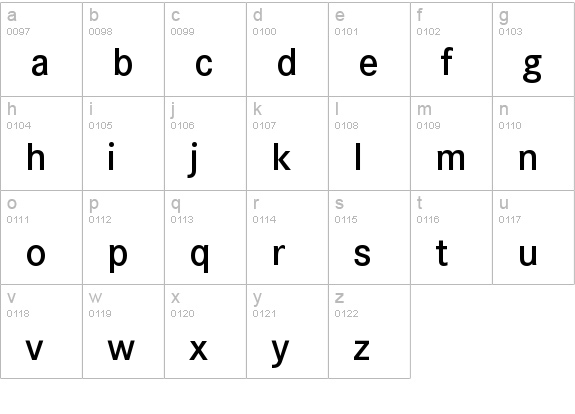
CorpoSDem Font Details
CorpoSDem font is a modern and sleek typeface that exudes professionalism and sophistication. Its clean lines and balanced proportions make it perfect for a wide range of design projects, from corporate branding to editorial layouts. The font strikes a harmonious balance between traditional elegance and contemporary flair, making it a versatile choice for both print and digital applications. One of the best features of CorpoSDem font is that it is available for free download at FontsMarket.com. This means that you can easily access this high-quality typeface without any cost, making it an excellent option for designers and creatives looking to elevate their work without breaking the bank. Don't miss out on the opportunity to enhance your projects with the stylish and versatile CorpoSDem font, now just a click away at FontsMarket.com.